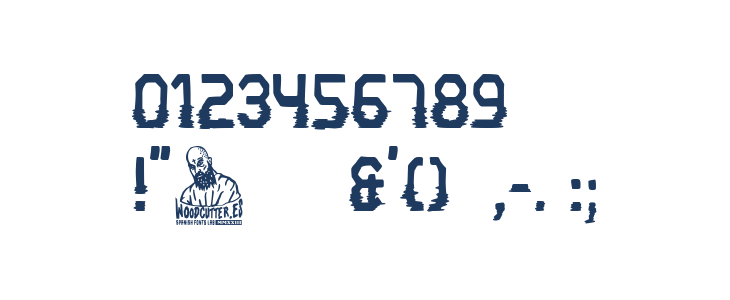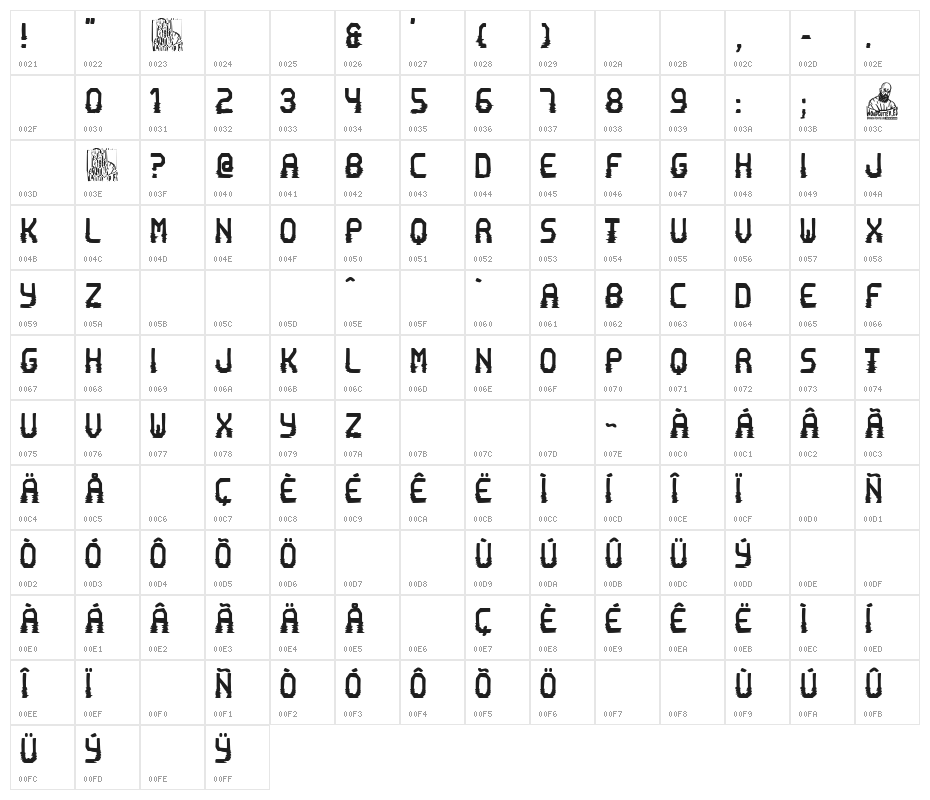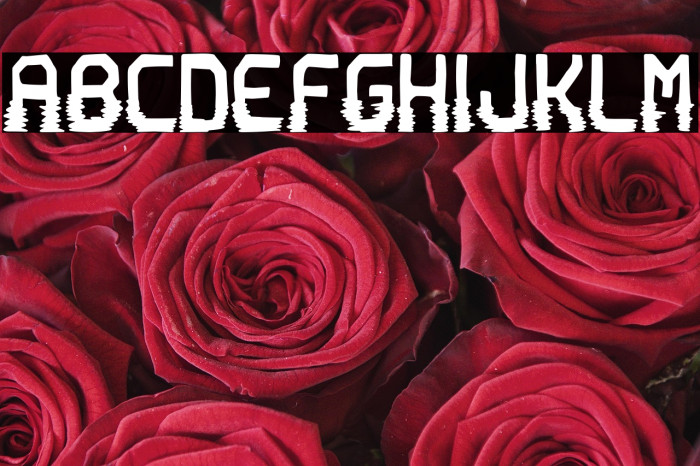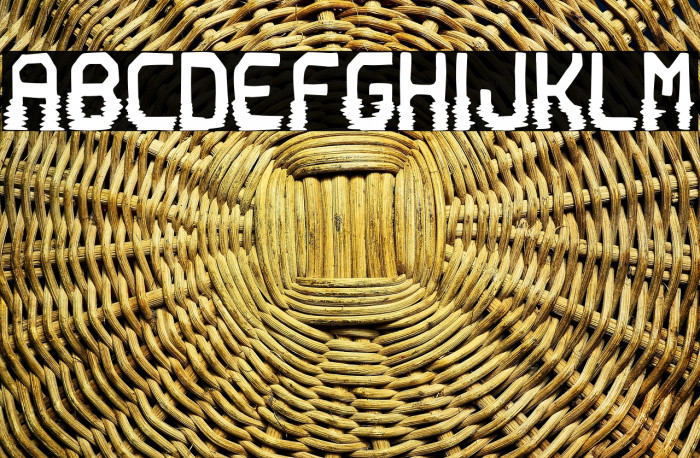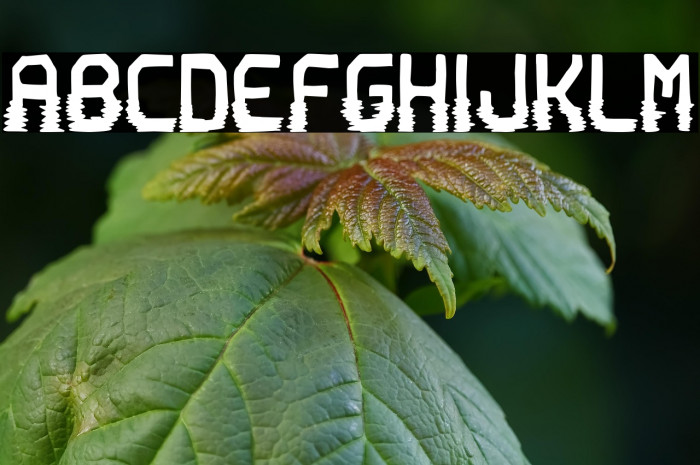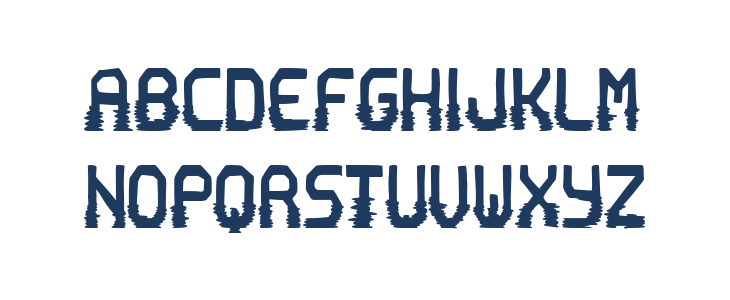
Prison of Love Font
Prison of Love Description
This font features a bold and edgy design with a distressed, glitch-like effect that gives it a unique and modern appearance. The characters are uppercase and lowercase letters, numbers, and a selection of special symbols. Each character appears to be slightly distorted, as if vibrating or being pulled apart, which adds a dynamic and energetic feel. The font's style is reminiscent of digital or electronic themes, making it suitable for projects that require a futuristic or rebellious aesthetic. The boldness of the characters ensures readability while maintaining a distinct visual impact.
| Proposed Projects | Ideal for digital art, music album covers, video game titles, and edgy branding projects. |